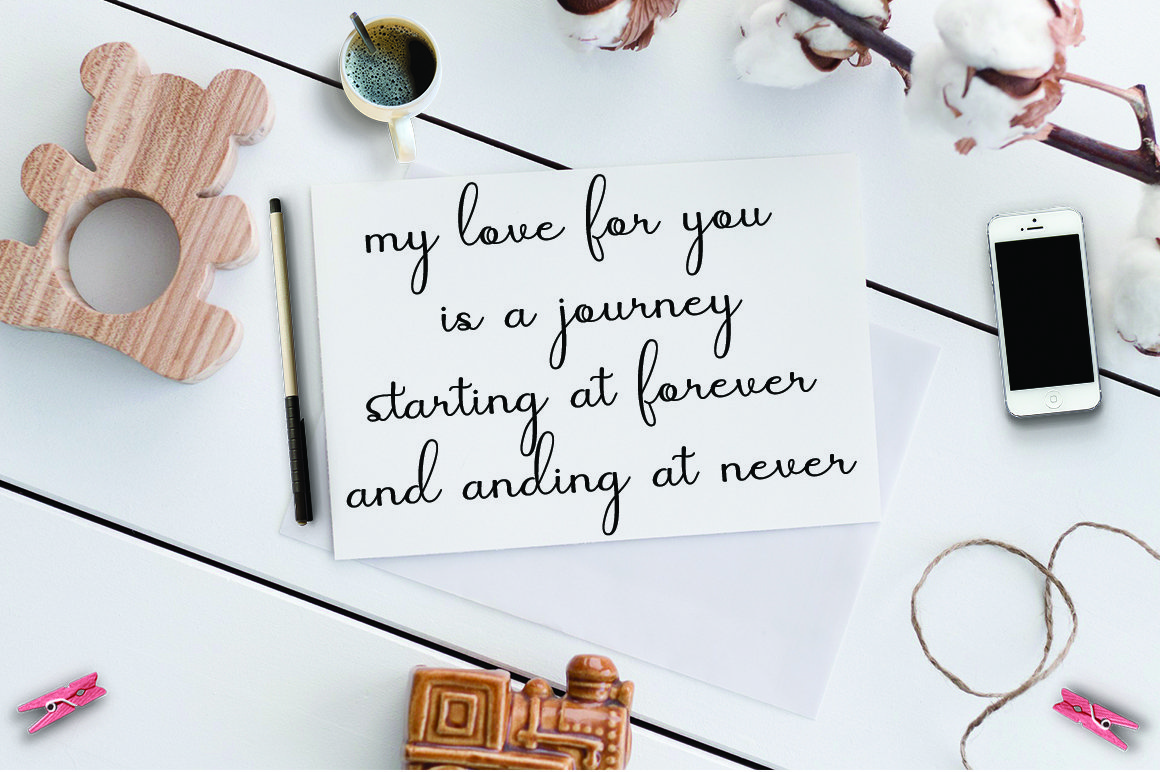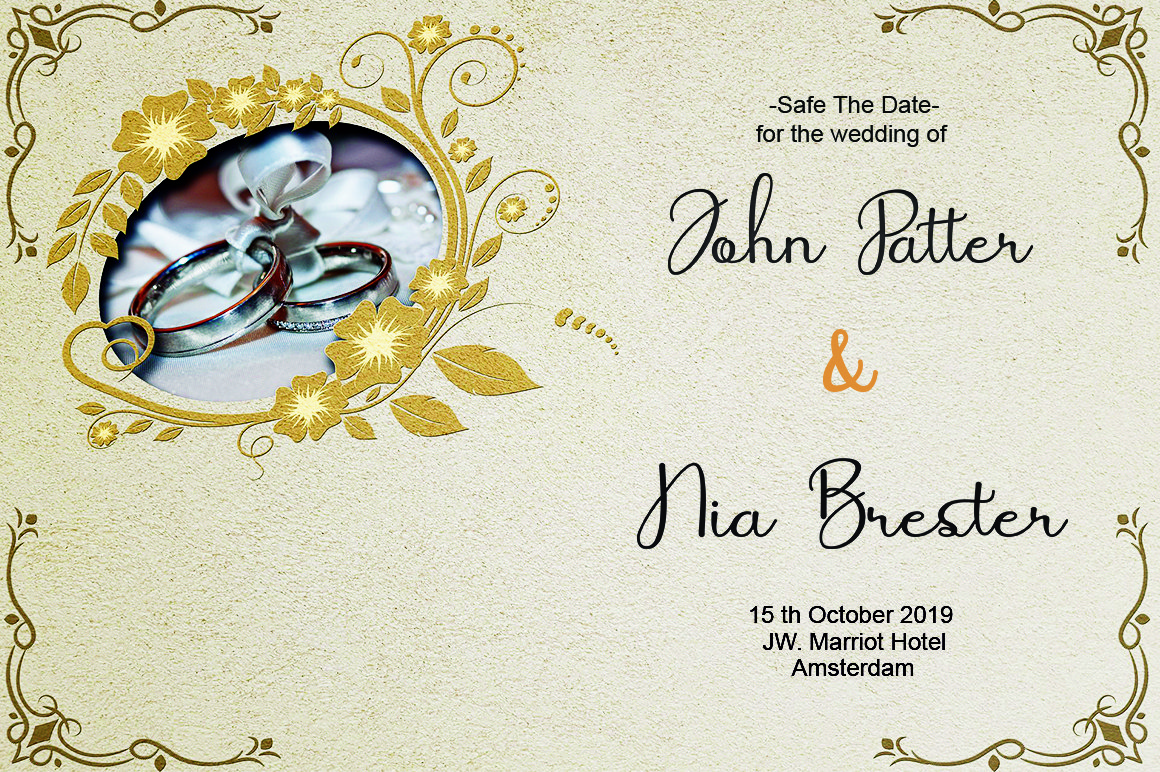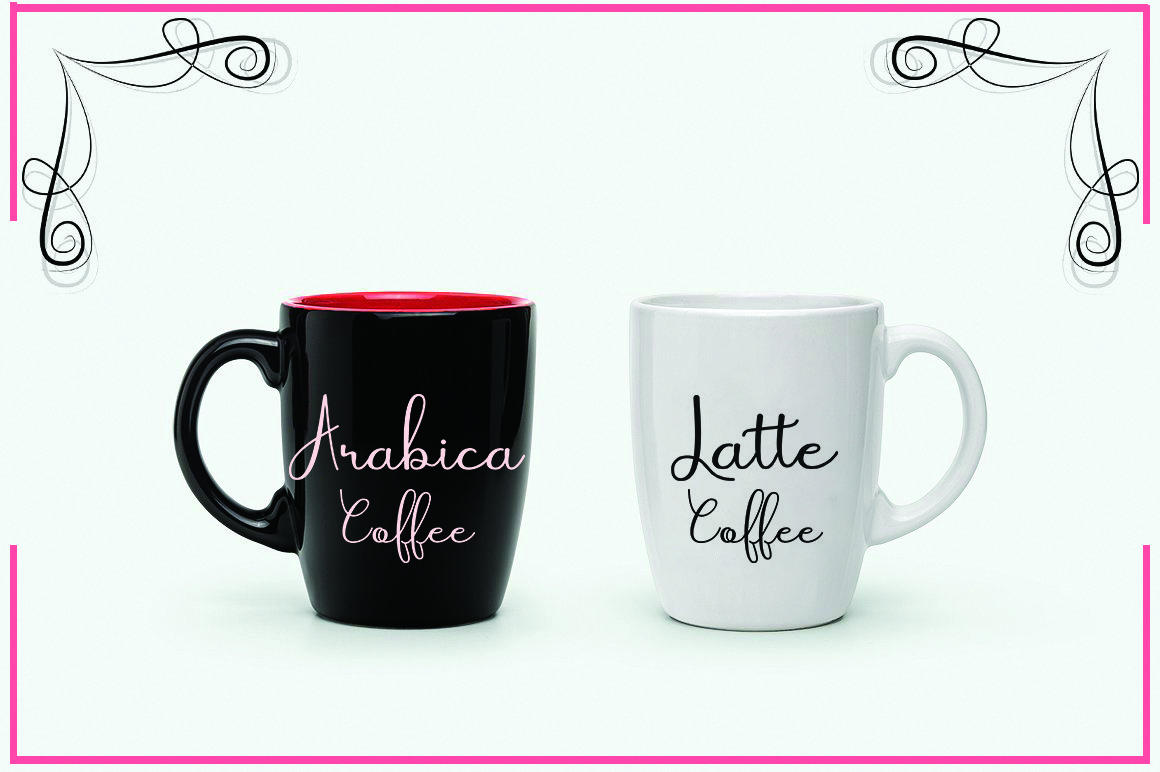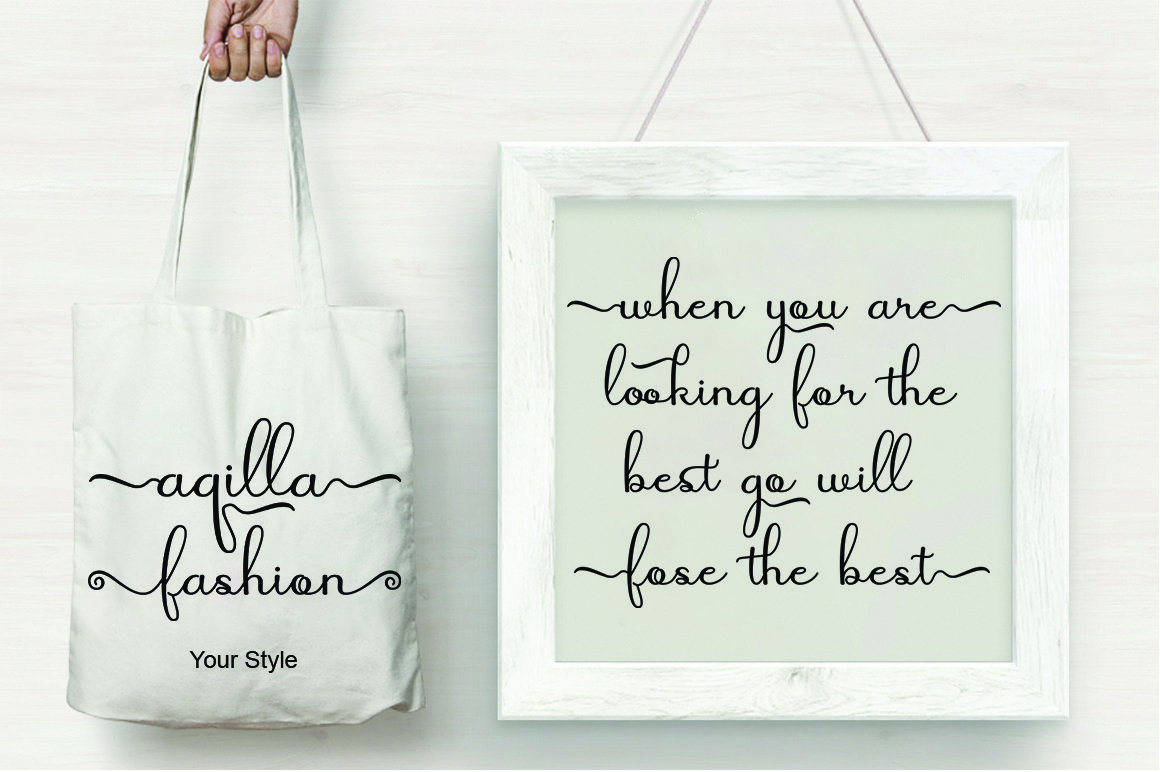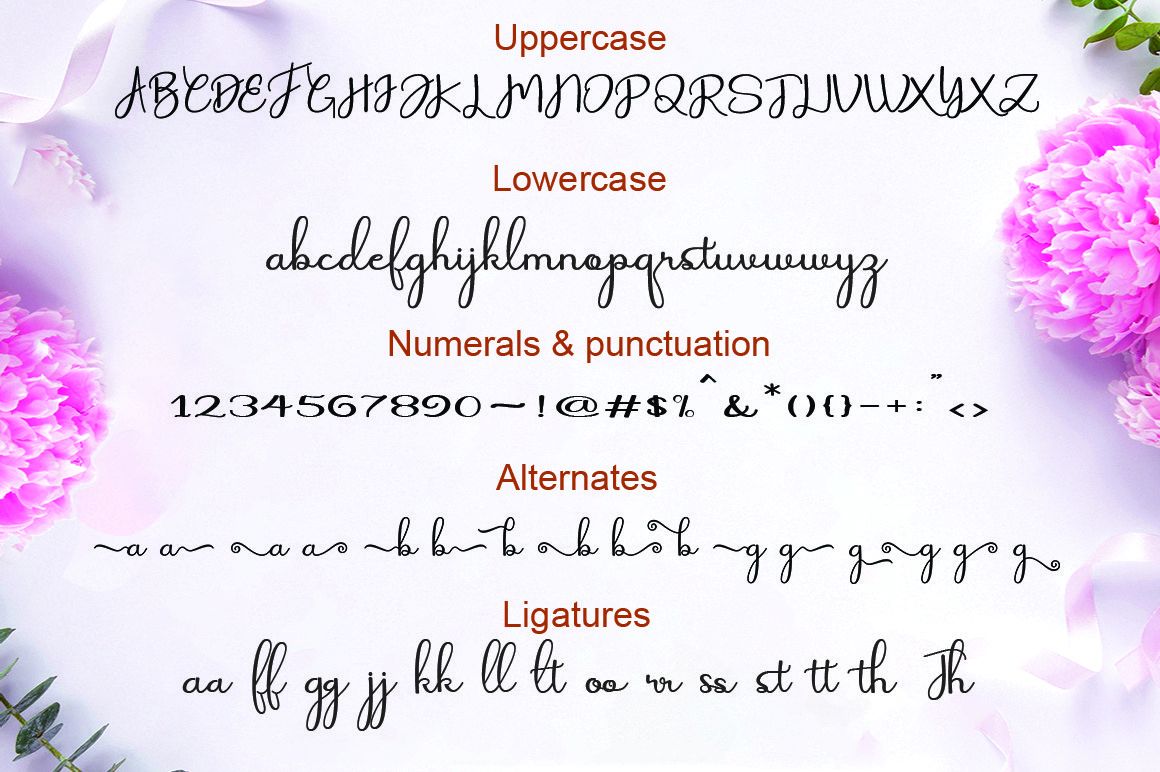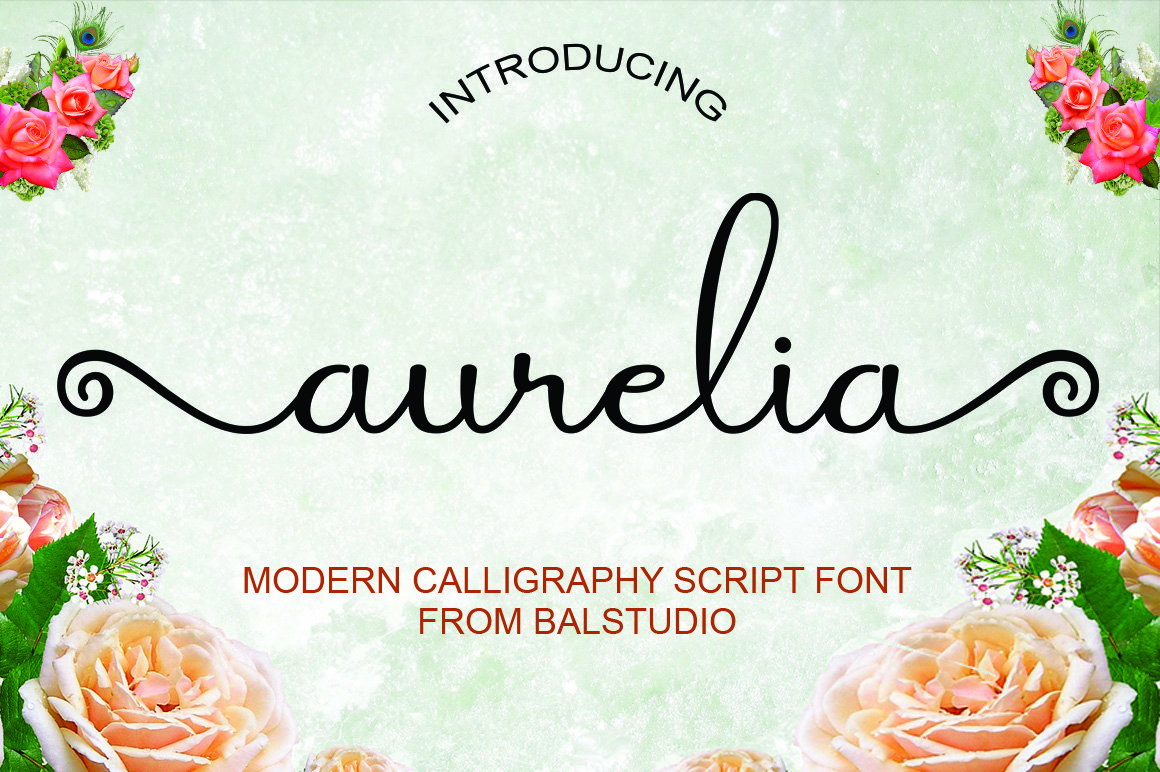
Aurelia Font
Aurelia Font is perfect for luxury jewelry branding, golden anniversary invitations, premium spa communications, elegant beauty product packaging, high-end fashion labels, sophisticated wedding stationery, luxury hotel materials, premium cosmetics branding, golden celebration graphics, elite jewelry catalogs, radiant lifestyle magazines, and luminous projects that require refined, golden-inspired typography with luxury sophistication and radiant elegance.
What makes Aurelia Font so exciting is its radiant elegance and golden sophistication that embodies the luminous beauty and precious refinement of golden luxury and timeless glamour. This typeface features gracefully proportioned letterforms with luminous characteristics and refined details that evoke the warm glow of precious metals, the elegance of fine jewelry, and the kind of sophisticated radiance that defines luxury experiences and premium brand communications. The font's golden character and luxury appeal make it perfect for premium brands and elegant projects that want to communicate exclusivity, refinement, and the kind of luminous sophistication that creates lasting impressions of quality and luxury.
Aurelia Font typically comes in multiple weights and styles including Light, Regular, Medium, and Bold variations. Many versions also include elegant ornaments, luxury decorative elements, and golden-themed symbols that enhance the font's premium functionality and provide designers with comprehensive tools for creating sophisticated, luxury-inspired typography compositions that capture the radiant beauty of precious materials and elegant craftsmanship.
Shine with golden elegance using the luminous sophistication of Aurelia Font Free Download. This luxury-focused typeface brings together golden refinement with contemporary design functionality, making it an essential tool for premium brands and luxury professionals who need to create memorable, radiantly elegant communications that resonate with discerning audiences seeking quality, exclusivity, and the kind of sophisticated luxury that defines premium experiences. The font's golden character ensures your luxury projects will convey genuine refinement and radiant sophistication.
Whether you're designing luxury brand materials, premium jewelry marketing, or elegant celebration communications, Aurelia Font delivers exceptional luxury authenticity and golden elegance that connects with audiences who appreciate refined quality and sophisticated luxury experiences. Its radiant, graceful appearance works beautifully with premium color palettes and luxury imagery, creating designs that feel both luminously elegant and professionally luxurious.
The elegantly crafted letterforms of Aurelia Font demonstrate exquisite attention to the refined details that make luxury typography both visually stunning and emotionally compelling. Each character has been designed to capture the radiant beauty and sophisticated elegance of precious materials while maintaining excellent readability, making it particularly valuable for luxury communications where typography must convey both premium quality and the kind of golden sophistication that discerning clients expect from truly exceptional brands.